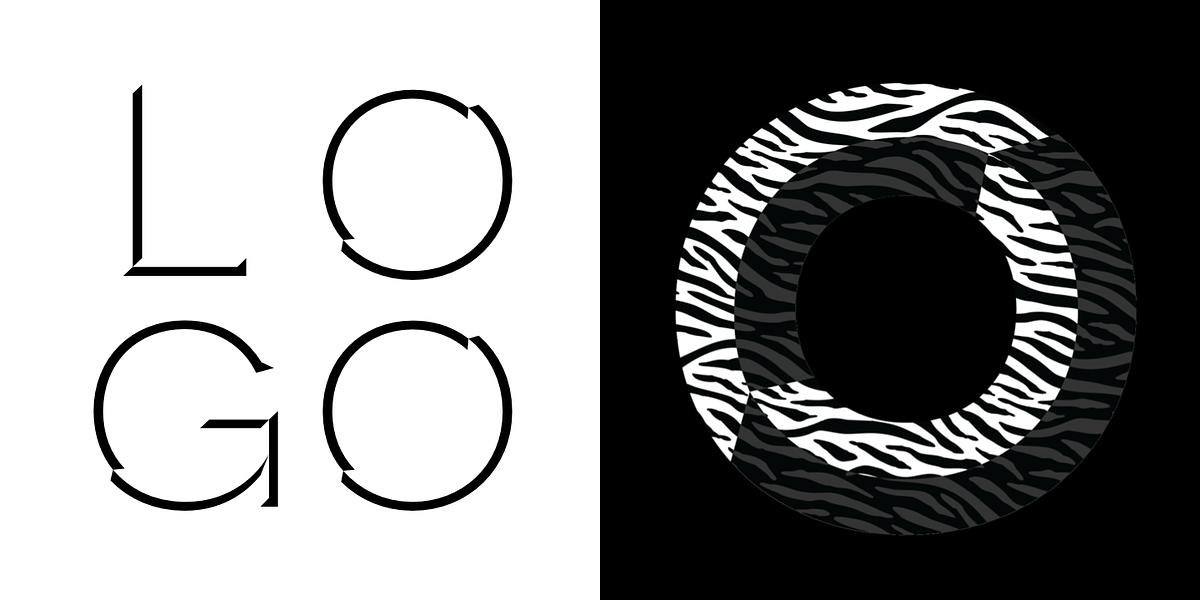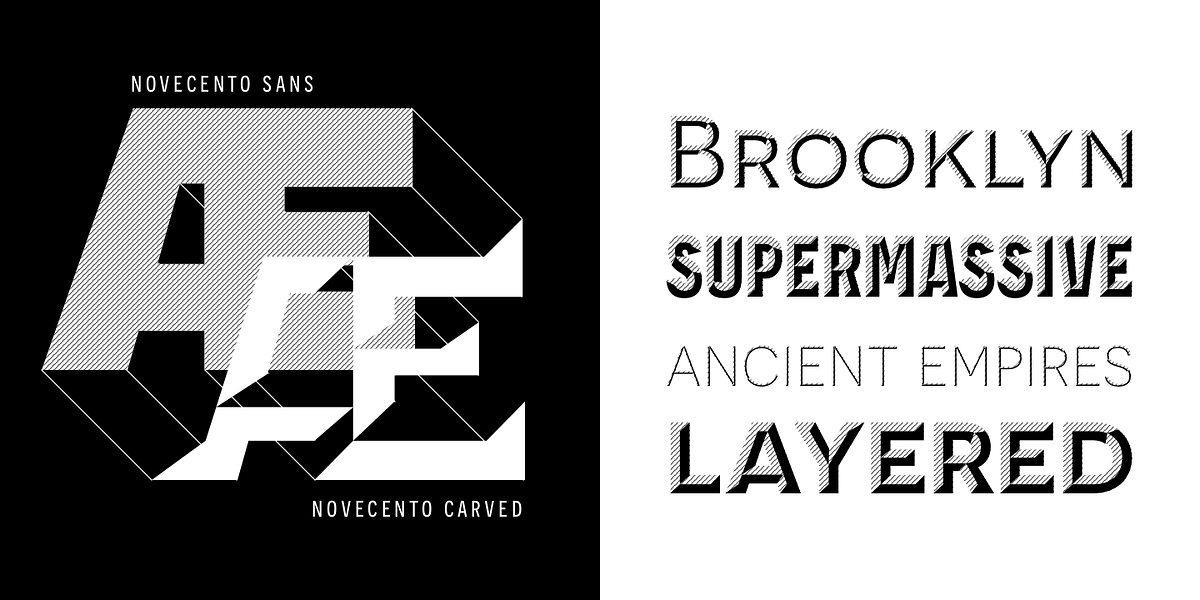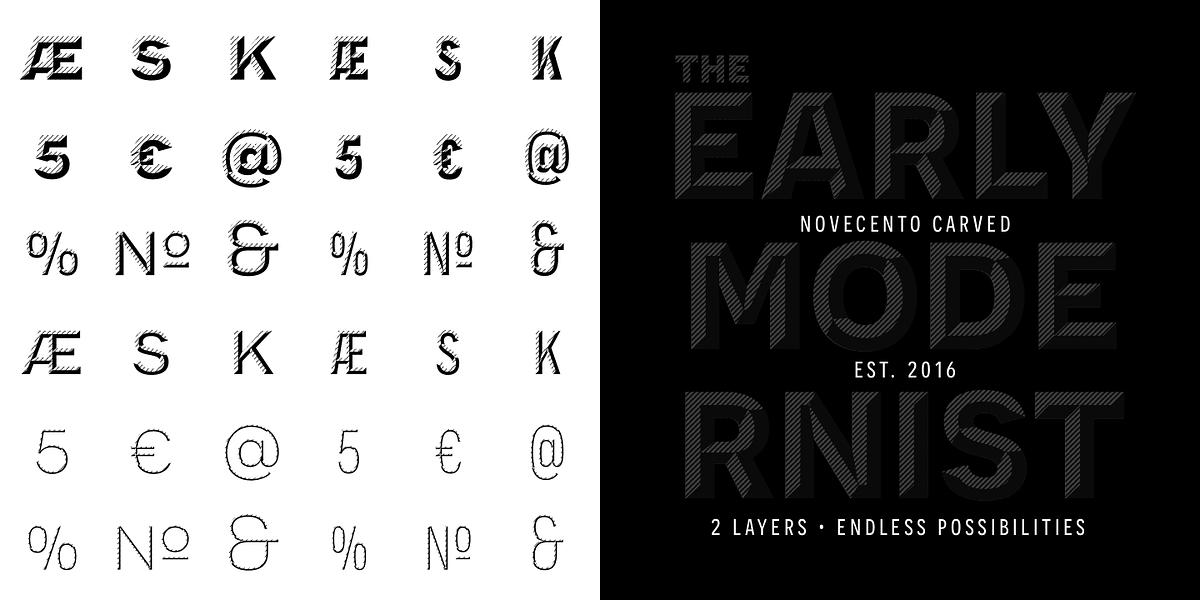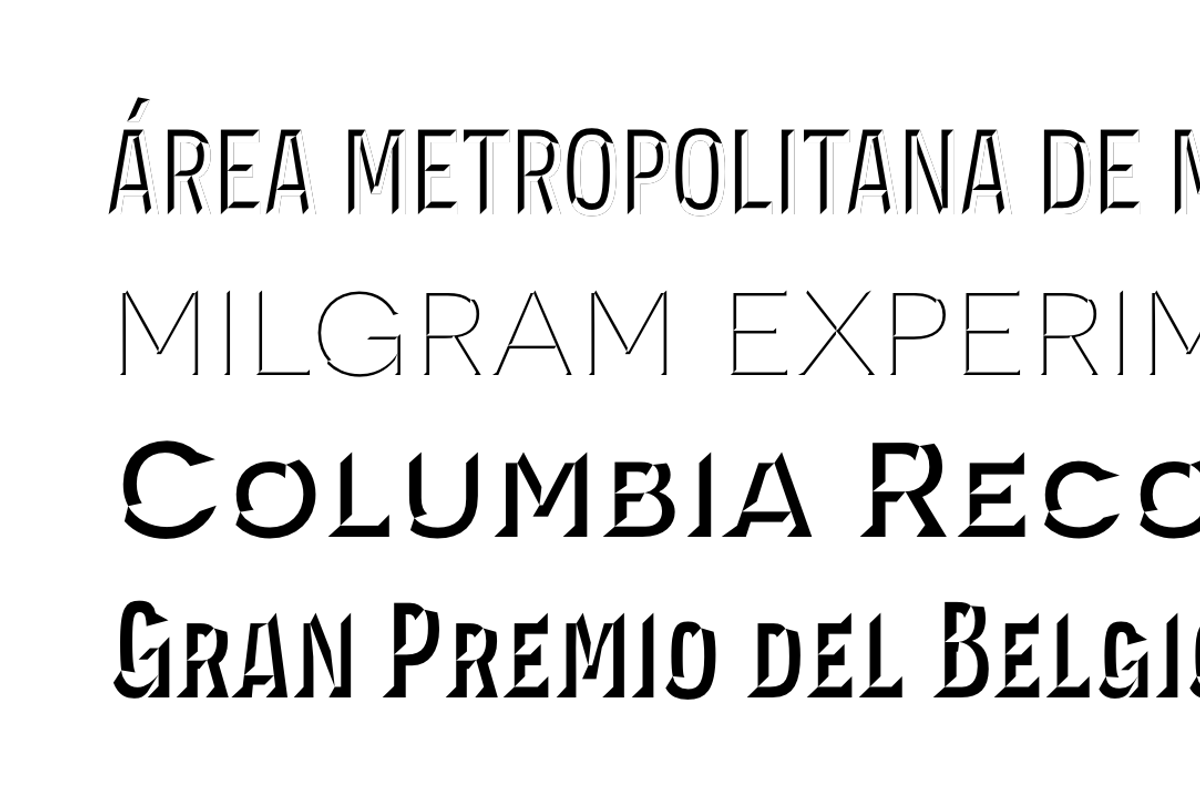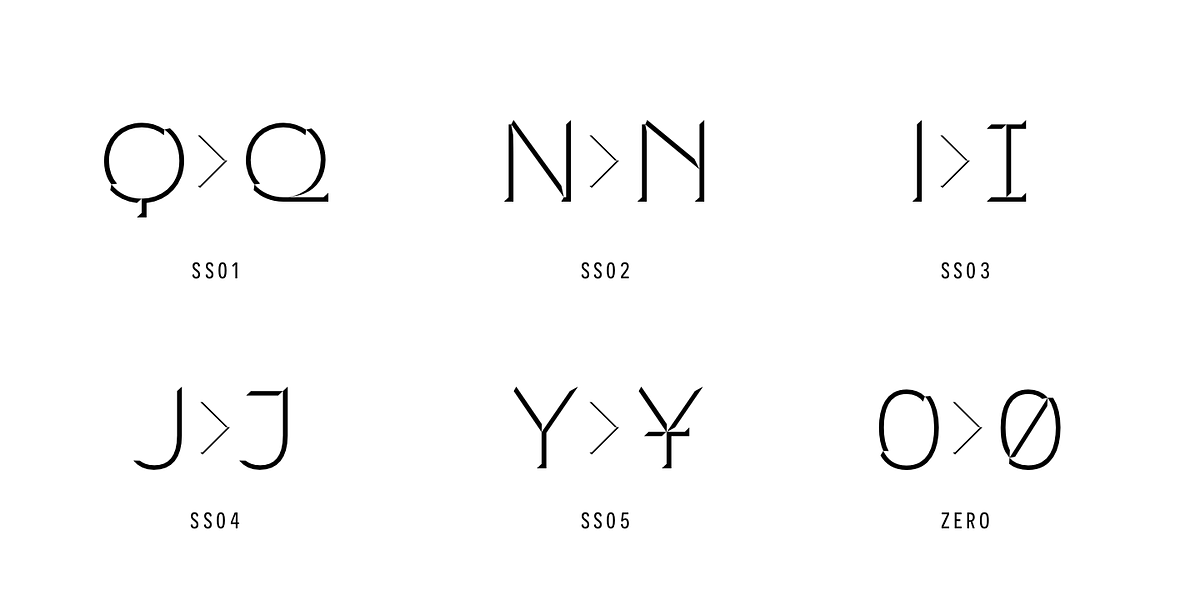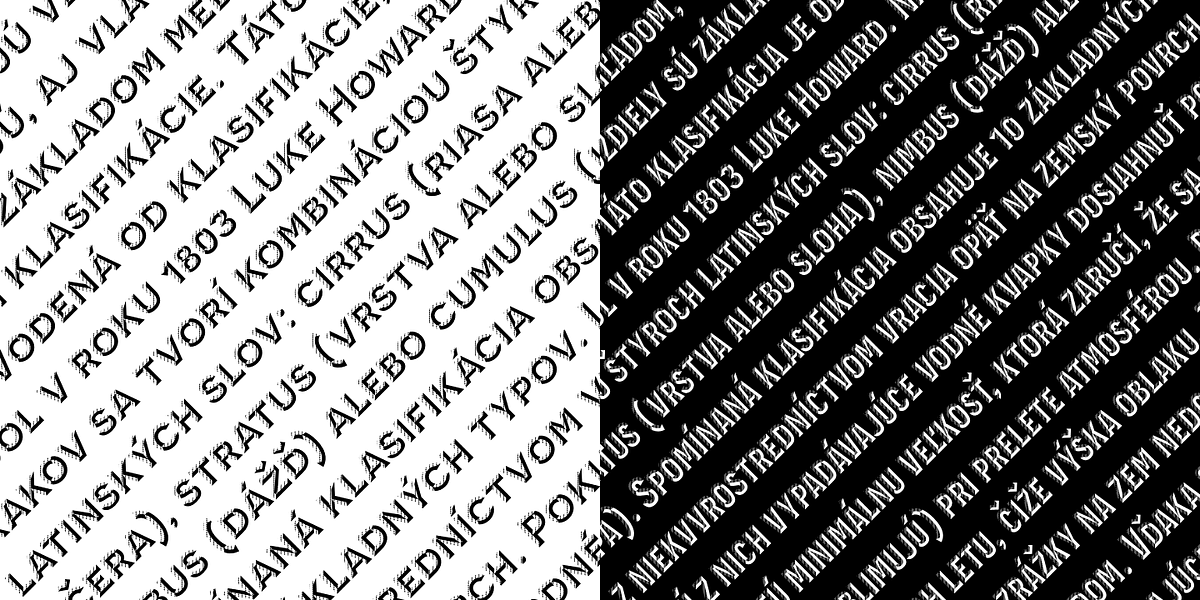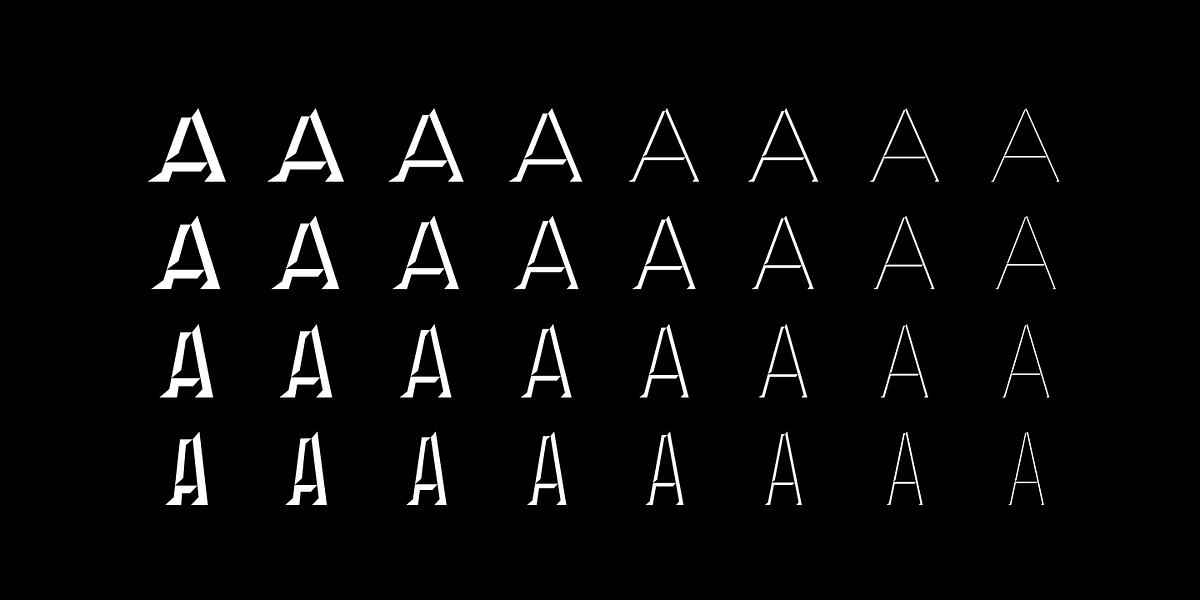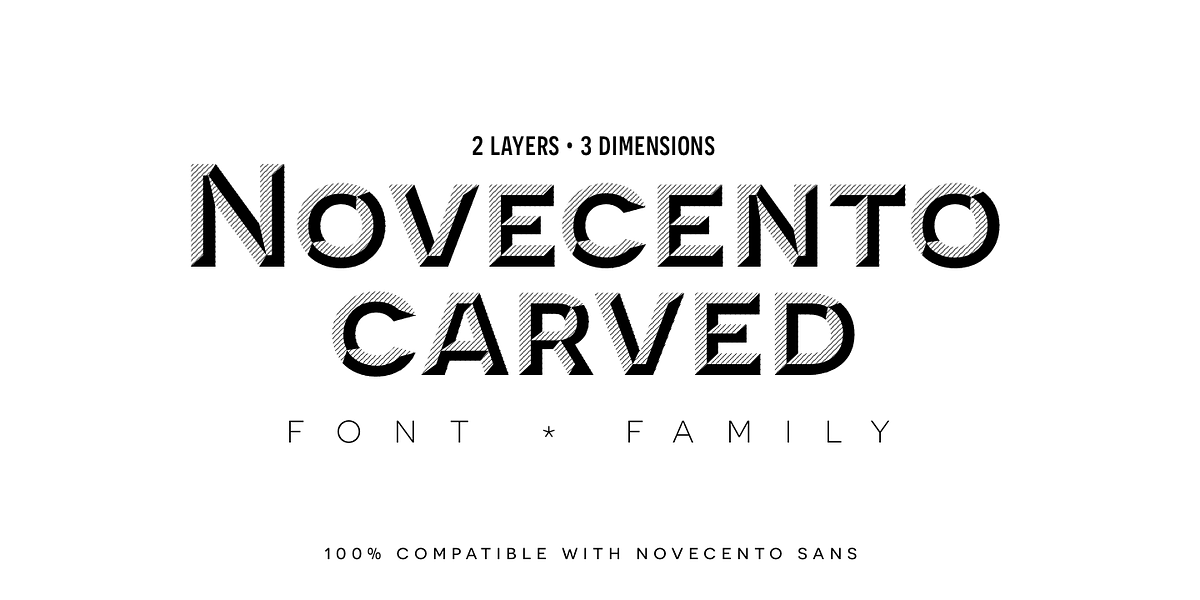
Novecento Carved
Novecento Carved is a layered font family.
It is designed to be paired with the 2013 version of <a href="/fonts/synthview/novecento-sans">Novecento Sans</a>, used as base layer.
Each glyph of each style of Novecento Carved (around 18.000) was manually reviewed and adjusted to exceed all the limitations of an automatic interpolation algorithm.
The minimalism of its construction makes it super easy to achieve a bas-relief or engraving effect just switching luminosity values among the two layers (carved and sans).